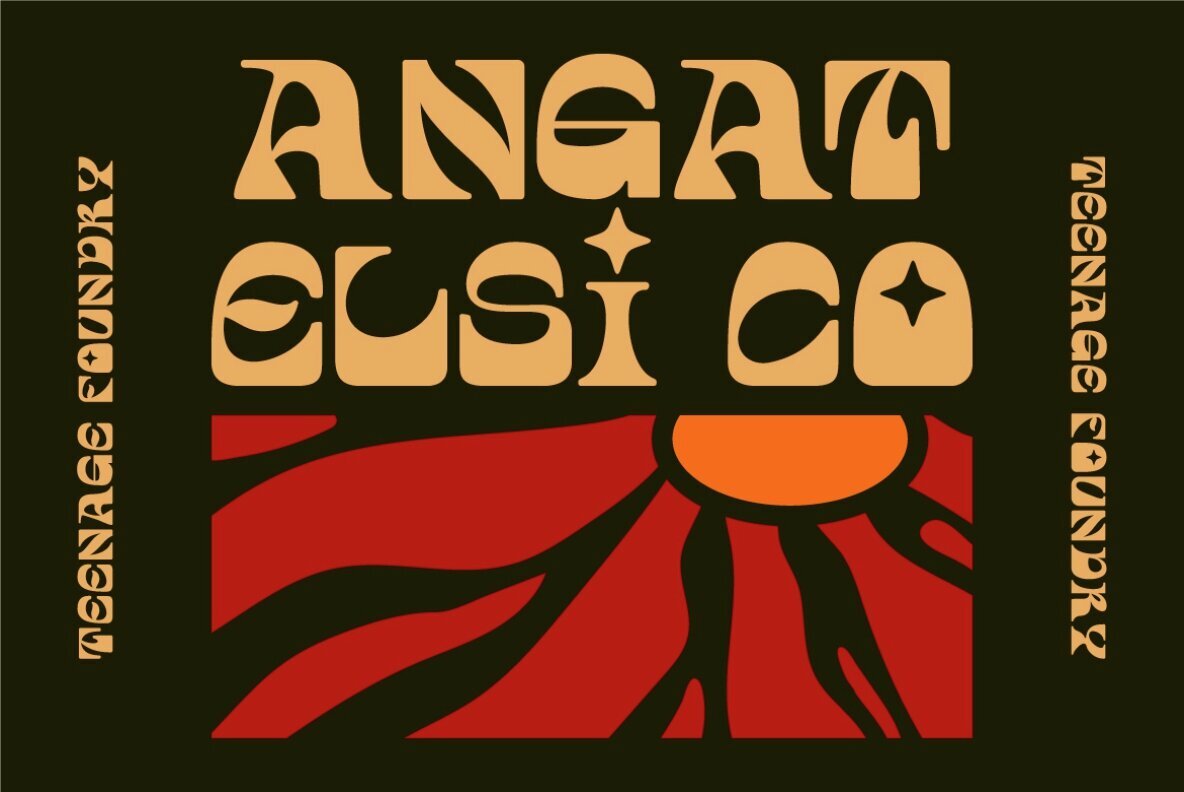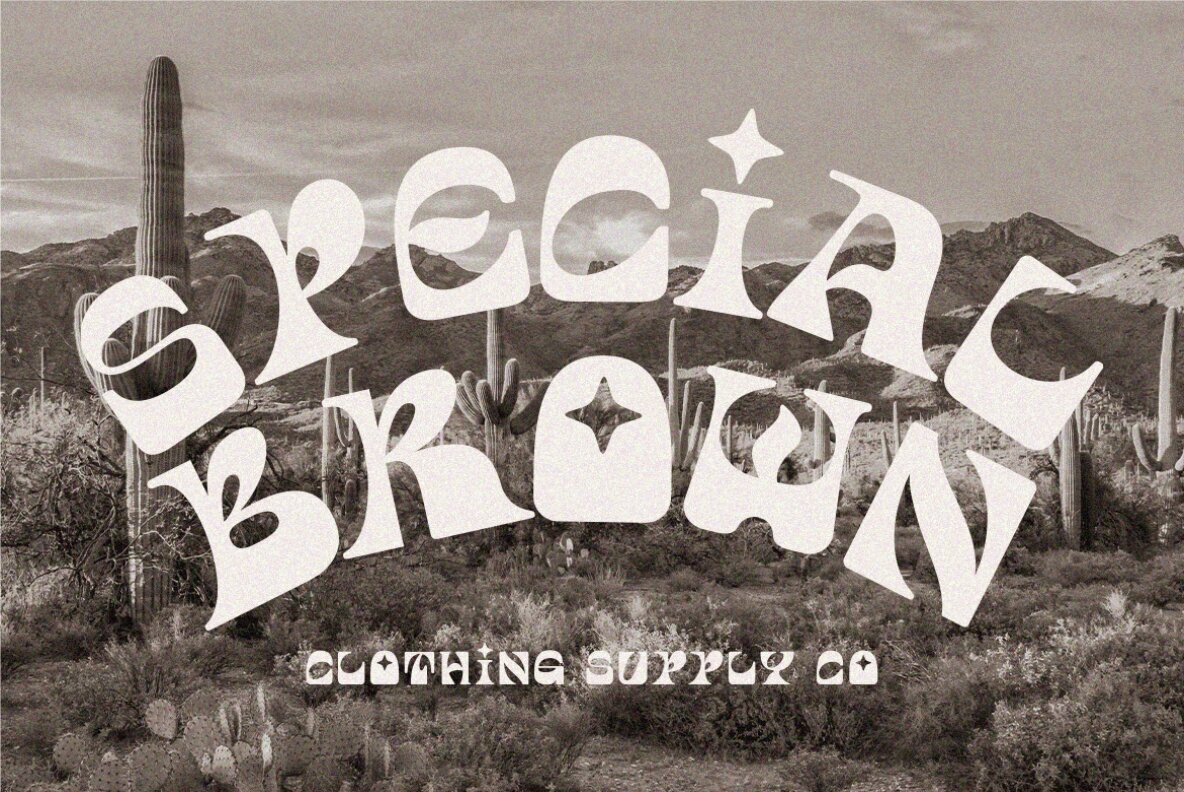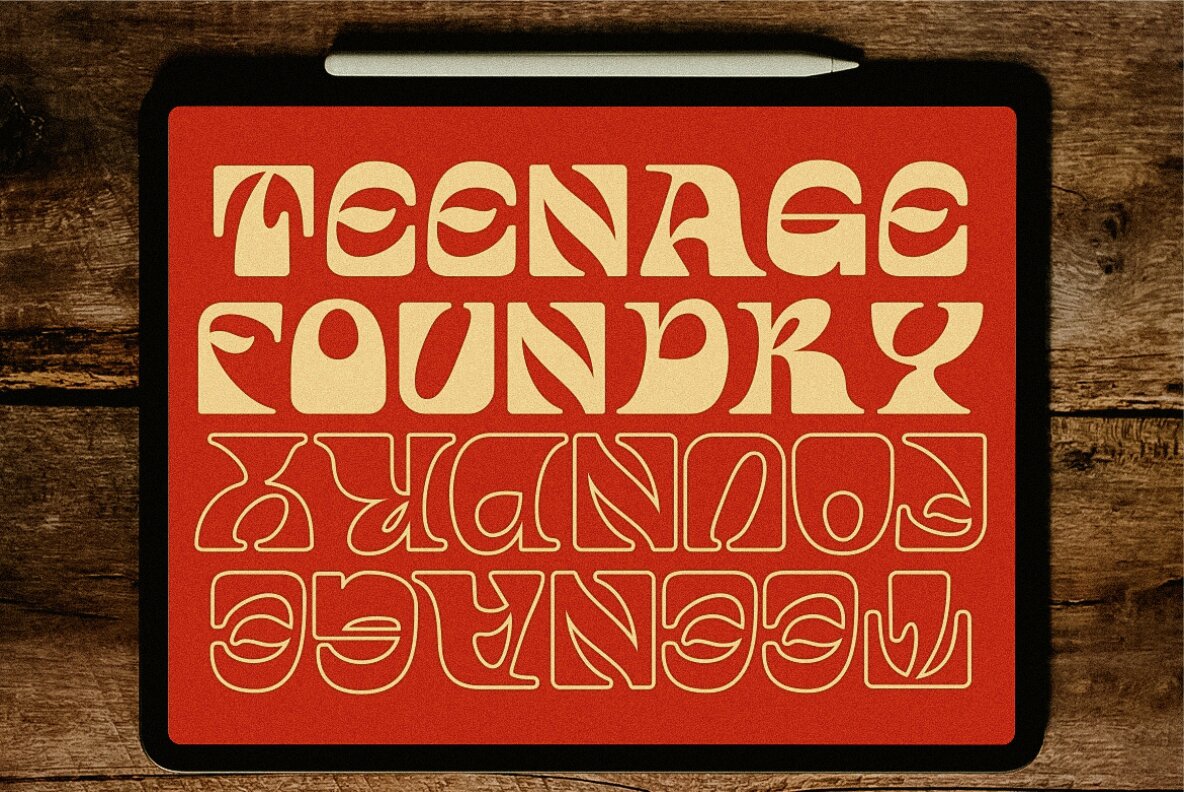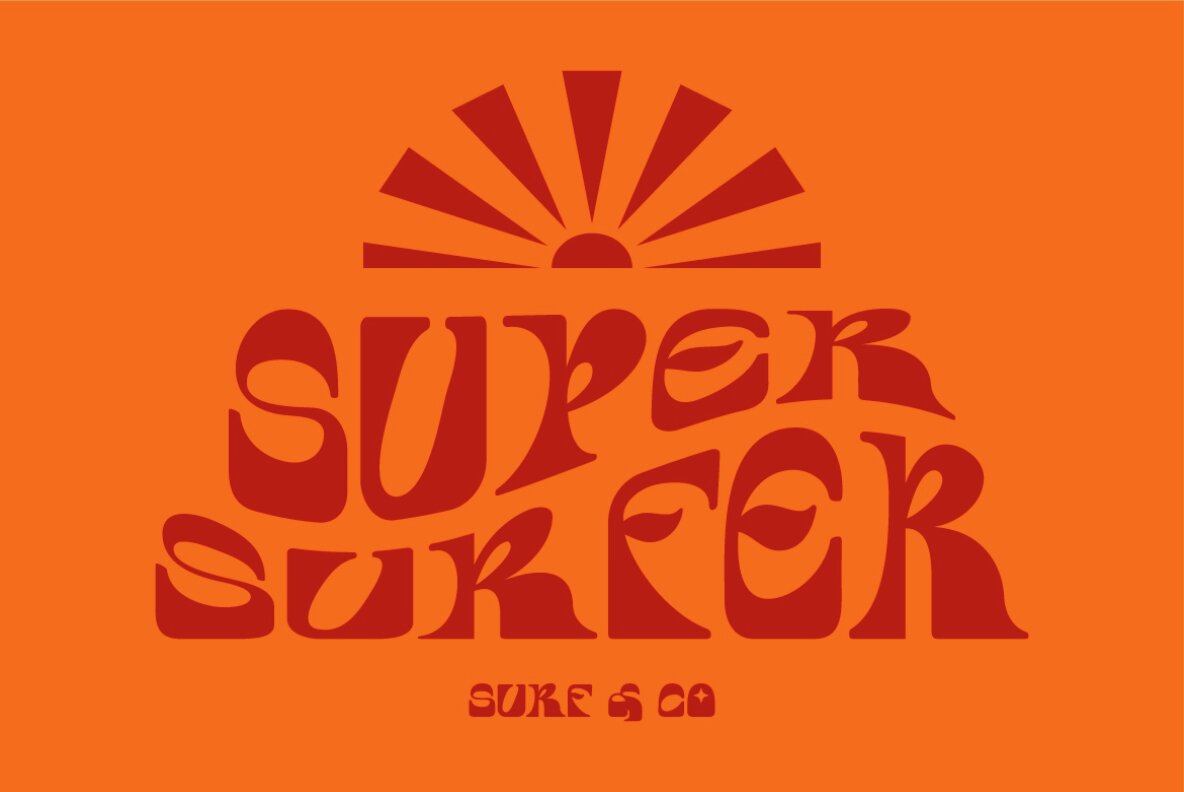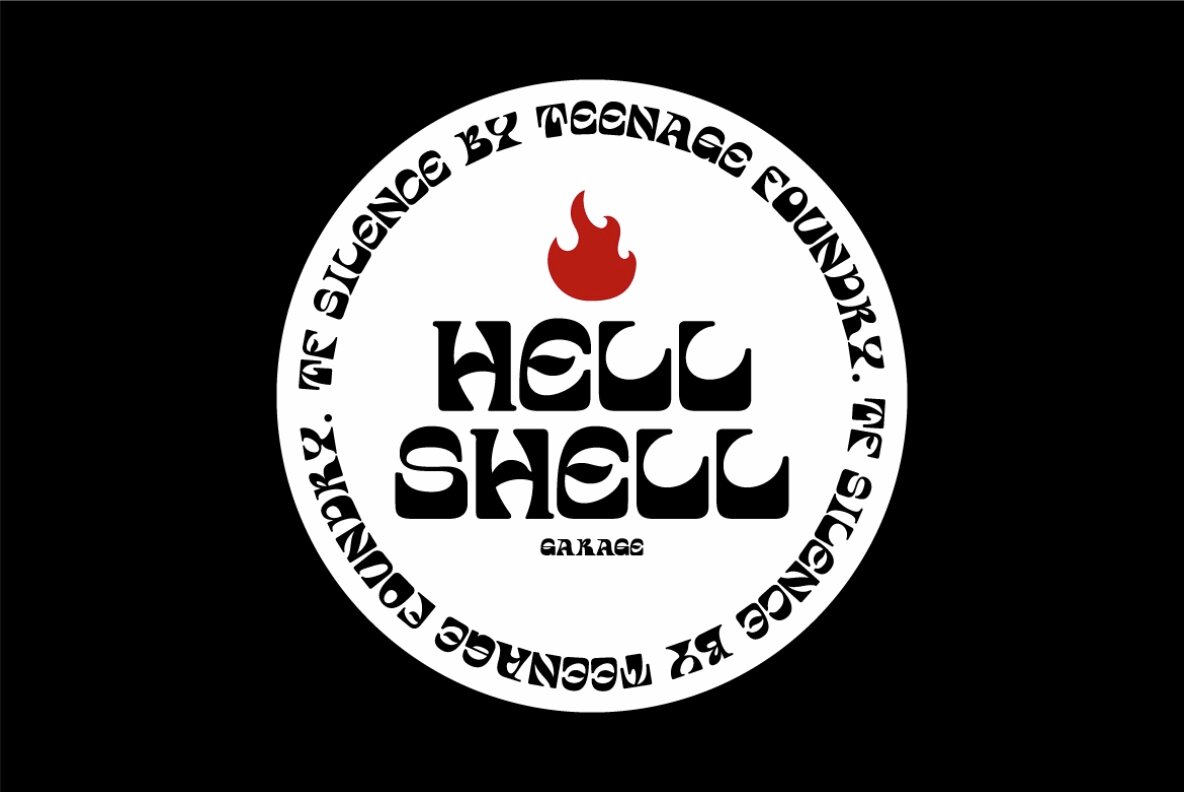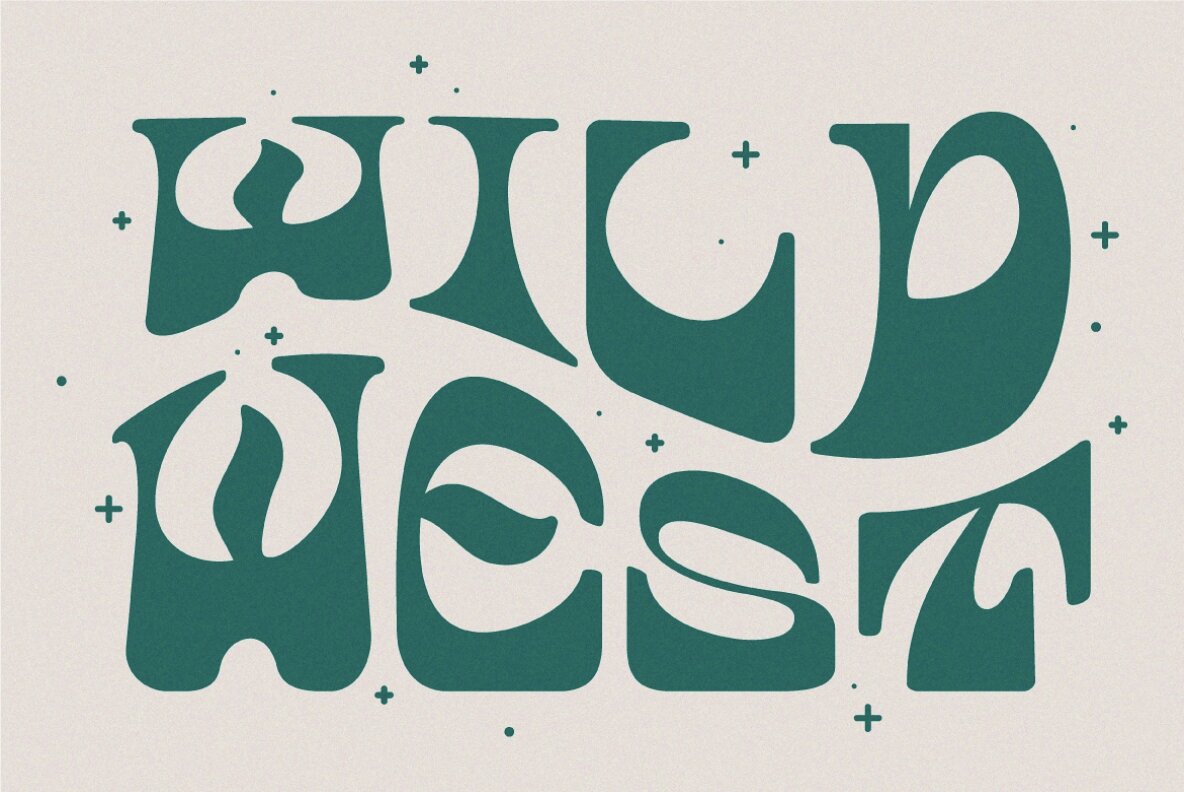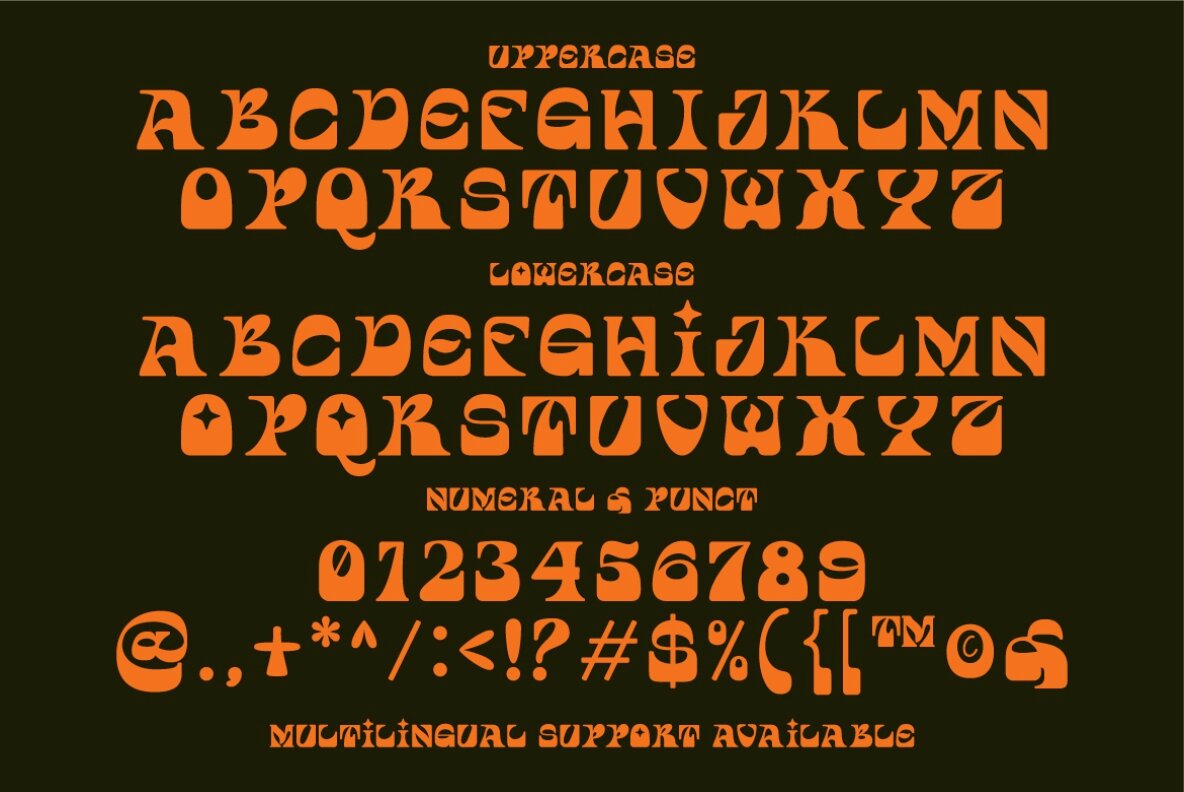
TF Silence Font
TF Silence by Teenage Foundry is a striking bold display font perfect for enhancing your design projects. Offering two distinct styles—Regular and Outline—this font is ideal for applications ranging from clothing designs to posters and logos.TF Silence: Bold Display Font with Versatile Styles
Teenage Foundry brings playful irreverence and bold character to contemporary type design. Known for high-impact display fonts, their work often leans into retro, pop, and offbeat aesthetics—ideal for projects that demand standout personality. From groovy curves to heavy geometric forms, their catalog spans a...